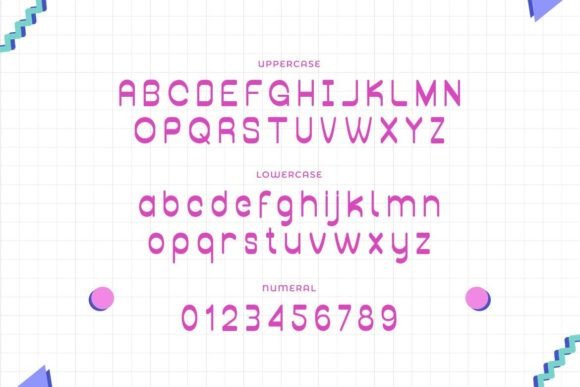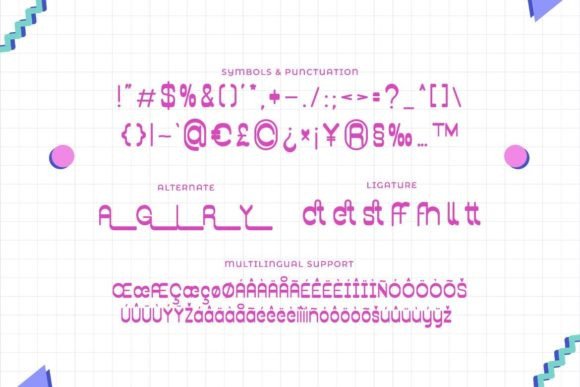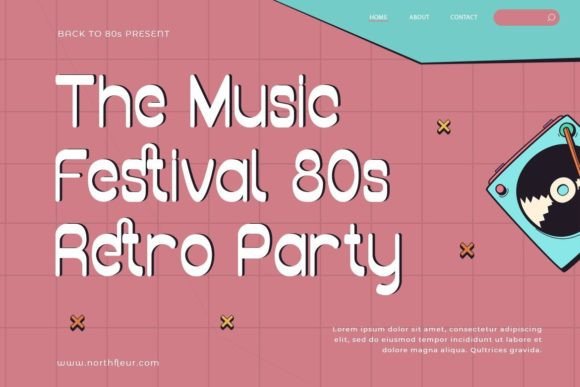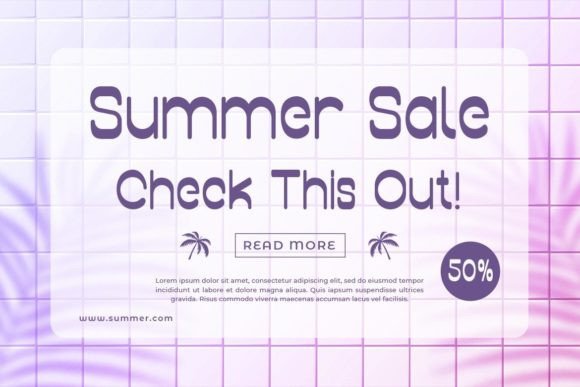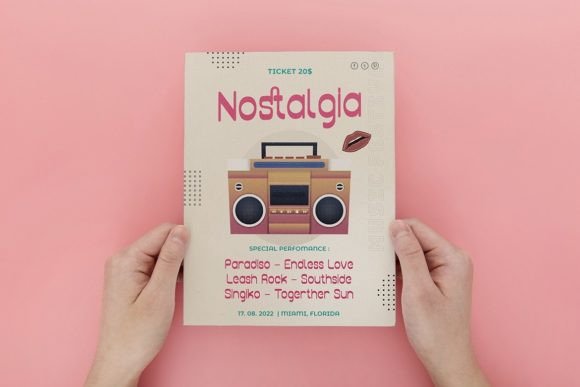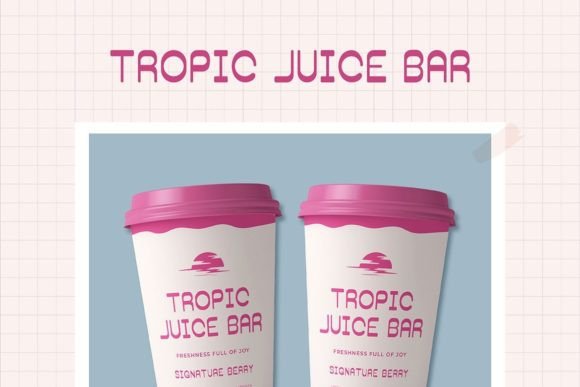
Introduction to Anetimbus Font
Remember the thrill of rummaging through your grandfather’s attic, uncovering a dusty old VHS player and a stack of VHS tapes? The nostalgic feeling that comes with it is a designer’s dream come true. The retro aesthetic is a timeless design resource that never fails to captivate audiences. And, if you’re looking to add that special something to your creative project, you’re in luck!
Get ready to be transported back to the 80s with the Anetimbus Font, a high-quality display font that exudes playfulness and nostalgia. With its PUA-encoded glyphs and ligatures, you’ll have access to a world of design possibilities, from transparent backgrounds to bold, eye-catching headlines. Whether you’re a seasoned designer or just starting out, this free download is a must-have in your design arsenal.
Key Features of Anetimbus Font
- High-quality, professional design resource ideal for creative projects.
- Includes a transparent background, making it easy to use in various design scenarios.
- Features a unique and modern design, making it perfect for adding a touch of elegance to any project.
- Designed with high-resolution graphics in mind, with a resolution of 300 DPI for crisp and clear results.
- Perfect for use in a variety of creative projects, including logos, branding materials, and marketing materials.
Honest Review: Anetimbus Font
As a designer, I’m always on the lookout for high-quality design resources that can elevate my creative projects. Recently, I stumbled upon the Anetimbus Font, and I’m excited to share my honest review with you.
Here are the things that work well for the Anetimbus Font: ✨
- Beautiful, modern design aesthetic that’s perfect for creative projects.
- High-quality design that’s perfect for use on both digital and print materials.
- Limited character set, which may not be suitable for projects that require a wide range of characters.
- No support for transparent background, which may limit its use in certain design applications.
Overall, I’m impressed with the Anetimbus Font. While it may not be perfect, its beautiful design and high-quality construction make it a valuable addition to any designer’s toolkit. If you’re looking for a free design resource that can help elevate your creative projects, I’d definitely recommend giving the Anetimbus Font a try.
Tips for Getting the Most Out of Anetimbus Font
When using Anetimbus Font, remember to use it in conjunction with other high-quality design resources to create a cohesive and professional design. You can also use the font in various sizes and styles to add depth and visual interest to your design. Additionally, the free download of Anetimbus Font makes it a great resource for designers on a budget.
Anetimbus Font is perfect for designers working on creative projects that require a clean and minimalist design. Some common use cases include branding, logos, brochures, and marketing materials. The font’s transparent background also makes it ideal for use on transparent backgrounds or overlays.